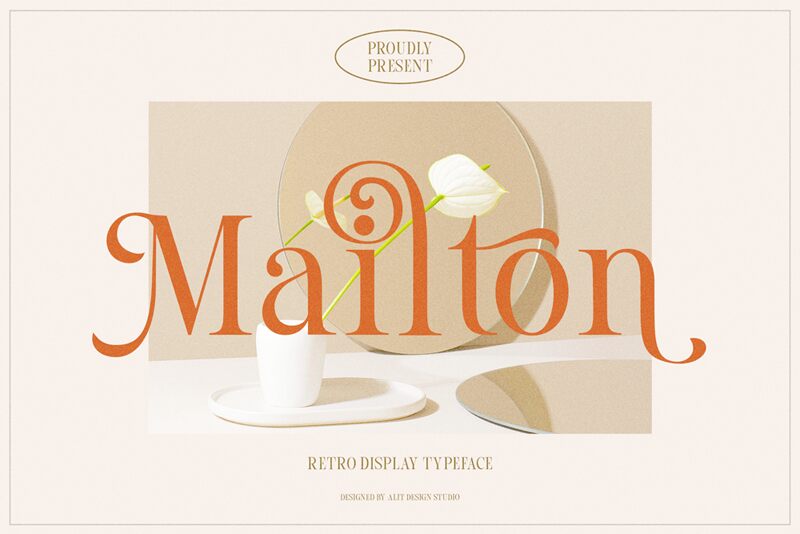
Mailton, a mesmerizing creation by Alit Design, embodies the essence of retro charm with its captivating retro serif style. This semi-light font gracefully blends nostalgia and modernity, making it perfect for a wide range of projects.
Its semi-condensed width adds an elegant touch to invitations, posters, and branding materials. For editorial designs, it brings a timeless elegance to magazine spreads and book covers. Crafted with precision and creativity, Mailton is your go-to choice for any project that calls for a hint of vintage allure fused with contemporary sophistication.